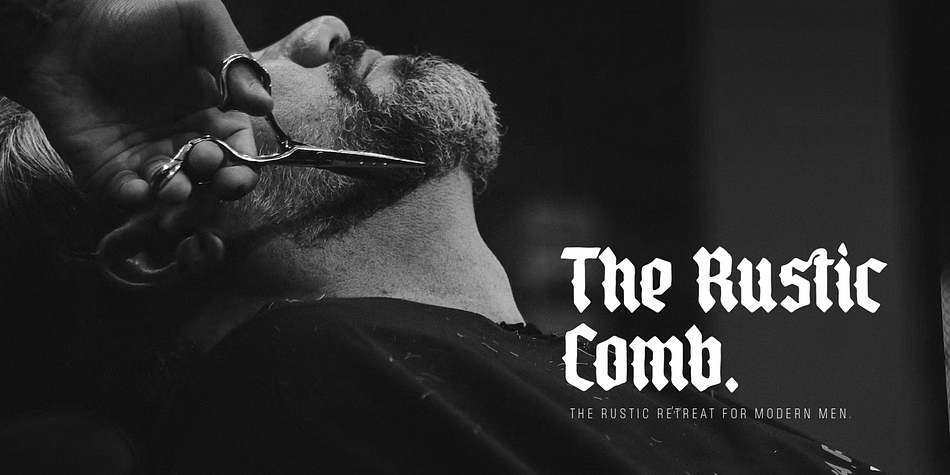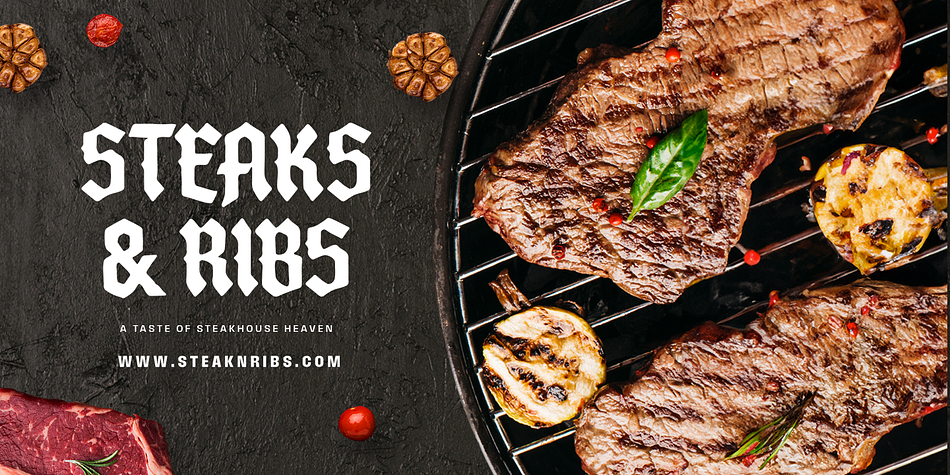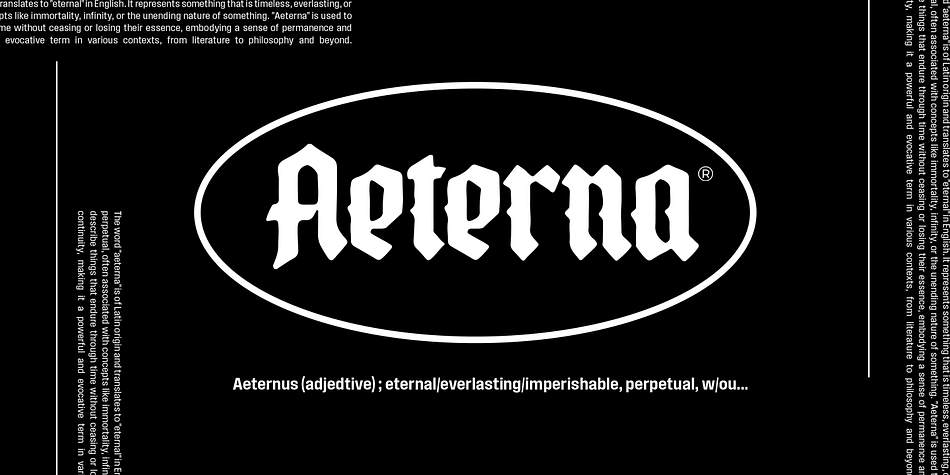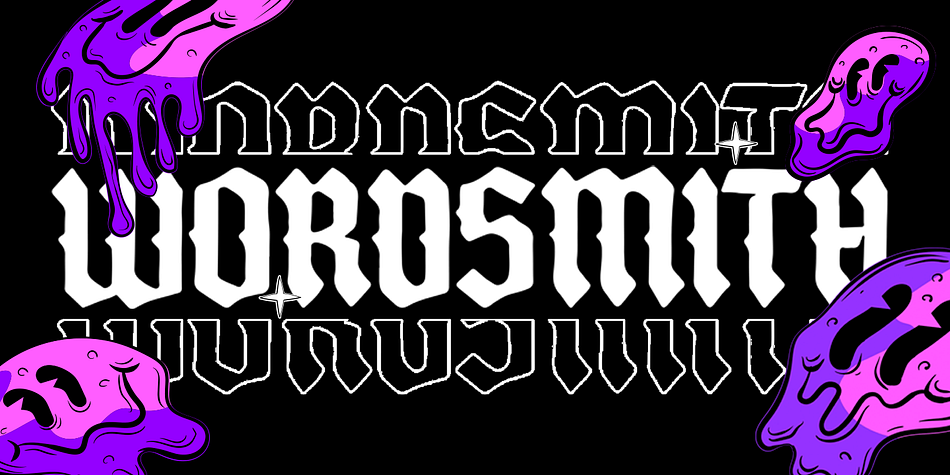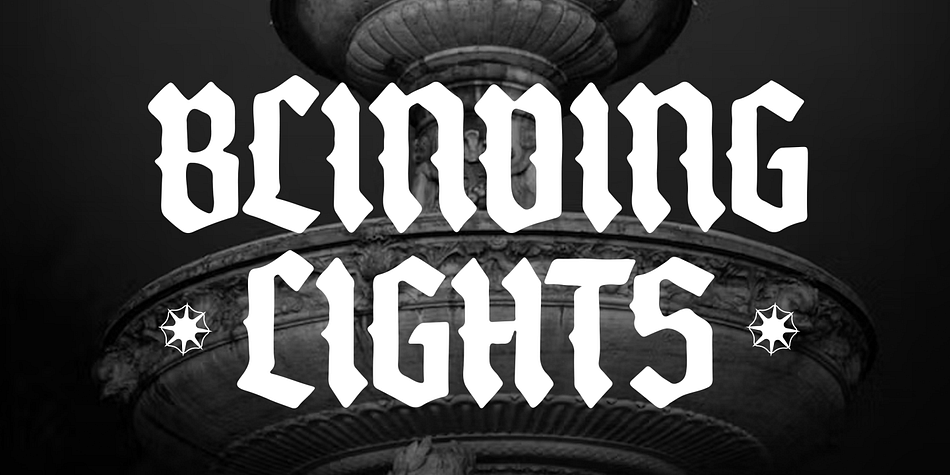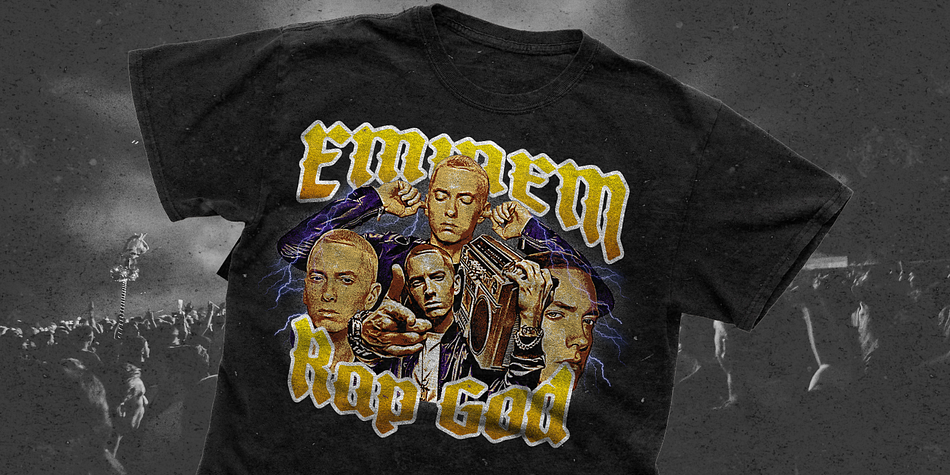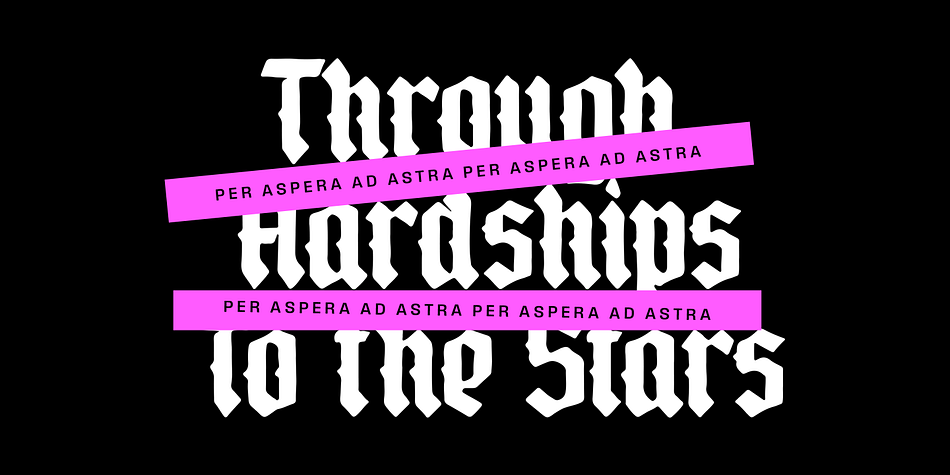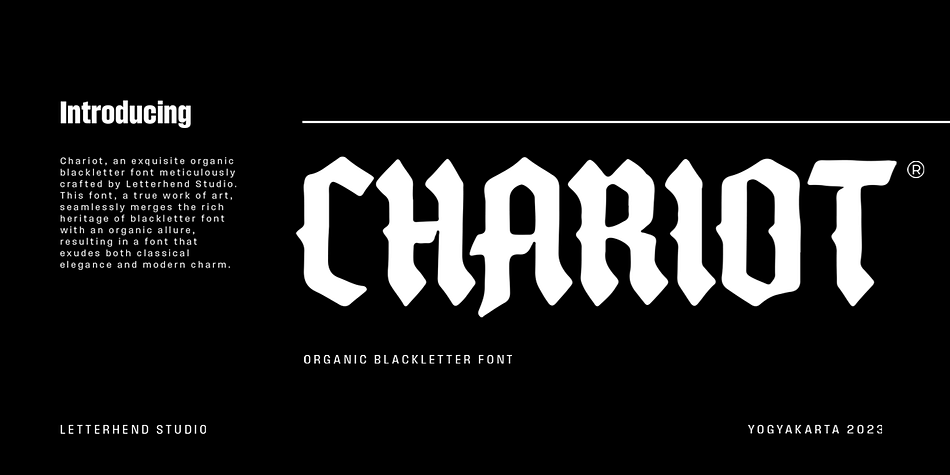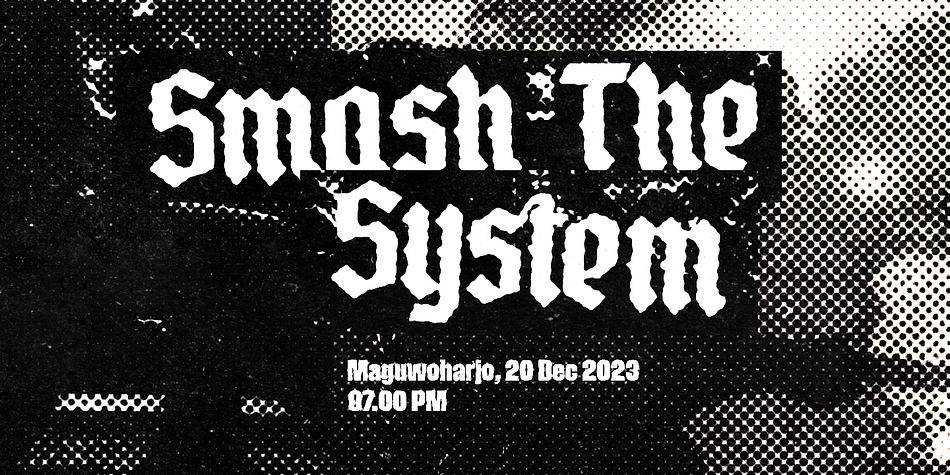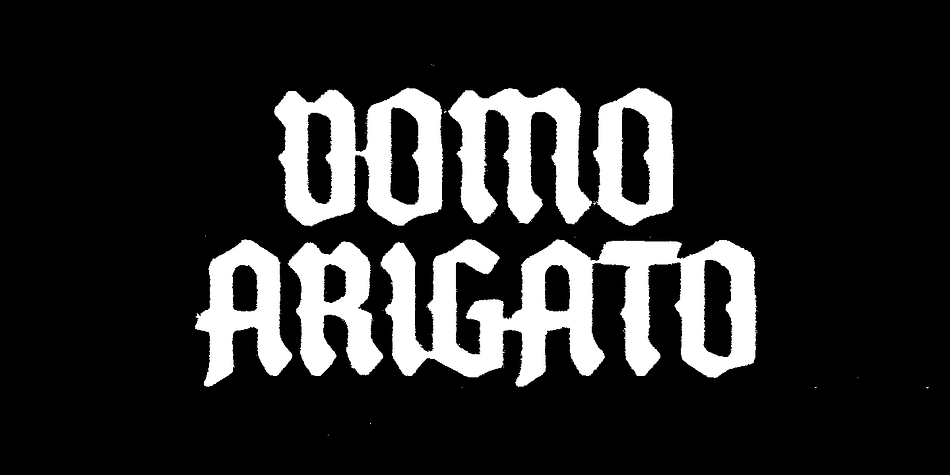
Chariot
Designed by Hendry Juanda, Chariot is a blackletter and historical font family published by Letterhend Studio.
Chariot, an exquisite organic blackletter font meticulously crafted by Letterhend Studio, This font, a true work of art, seamlessly merges the rich heritage of blackletter font with an organic allure, resulting in a font that exudes both classical elegance and modern charm.